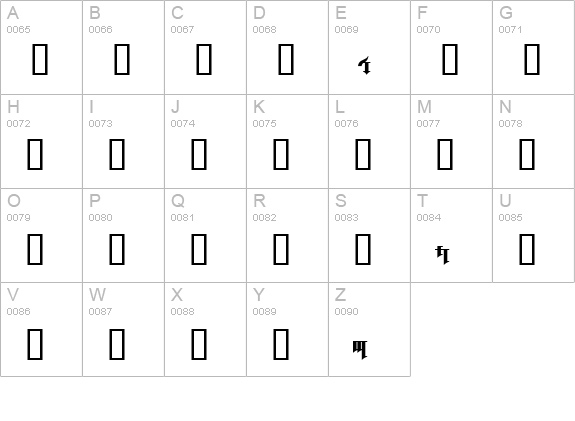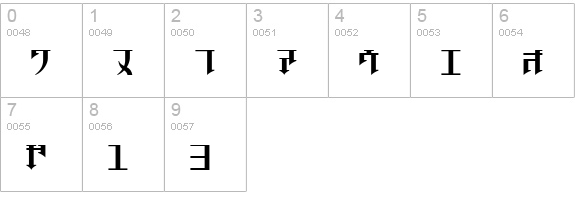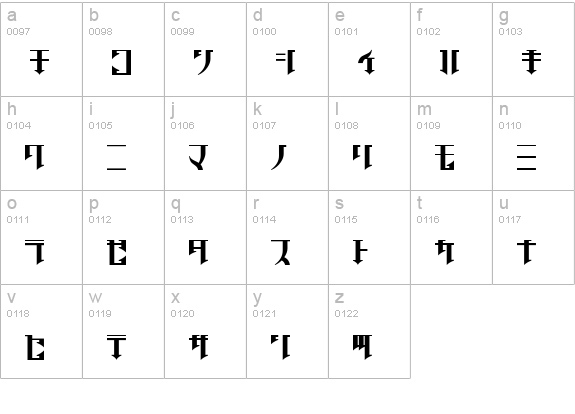
Golgotha Regular J. is the standard, neutral variant in the Golgotha typeface family \xE2\x80\x94 well suited to general body text, paragraphs, and standard typographic work.
Introducing Golgotha Regular J font, a stunning typeface that exudes elegance and sophistication. With its unique blend of modern and classic elements, this font is perfect for adding a touch of style to your design projects. The sleek lines and sharp edges of Golgotha Regular J font make it stand out from the crowd, while still maintaining a timeless appeal. What's even better is that Golgotha Regular J font is completely free to download at FontsMarket.com. Yes, you read that right - you can enhance your designs with this beautiful font without spending a penny. Whether you're working on a print project, a website design, or any other creative endeavor, Golgotha Regular J font is sure to elevate your work to the next level. Don't miss out on this incredible opportunity to access a high-quality font for free. Download Golgotha Regular J font today and let your creativity shine!